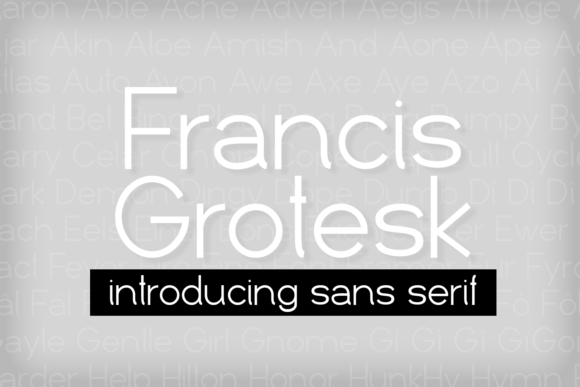
Presenting Francis Grotesk Font, the ultimate sans serif typeface designed to captivate and inspire your creative endeavors.
Immerse yourself in the world of typography with Francis Grotesk, a font that exudes simplicity and elegance. Its clean lines and crisp edges evoke a sense of sophistication, making it perfect for crafting eye-catching cover art that commands attention.
Whether you're a seasoned designer or just starting your creative journey, Francis Grotesk is your perfect companion. Its versatility extends beyond cover art, making it ideal for digital design projects, presentations, and even personalizing greeting cards.
Let your imagination soar with Francis Grotesk, a font that empowers you to express yourself in countless ways. Its timeless appeal ensures that your creations will stand the test of time, leaving a lasting impression on your audience.
Embrace the allure of Francis Grotesk, a font that seamlessly blends functionality and aesthetics. Its ability to elevate your designs to new heights makes it an indispensable tool for any creative toolbox.
Unlock the potential of Francis Grotesk today and embark on a typographic adventure that will redefine your creative possibilities.